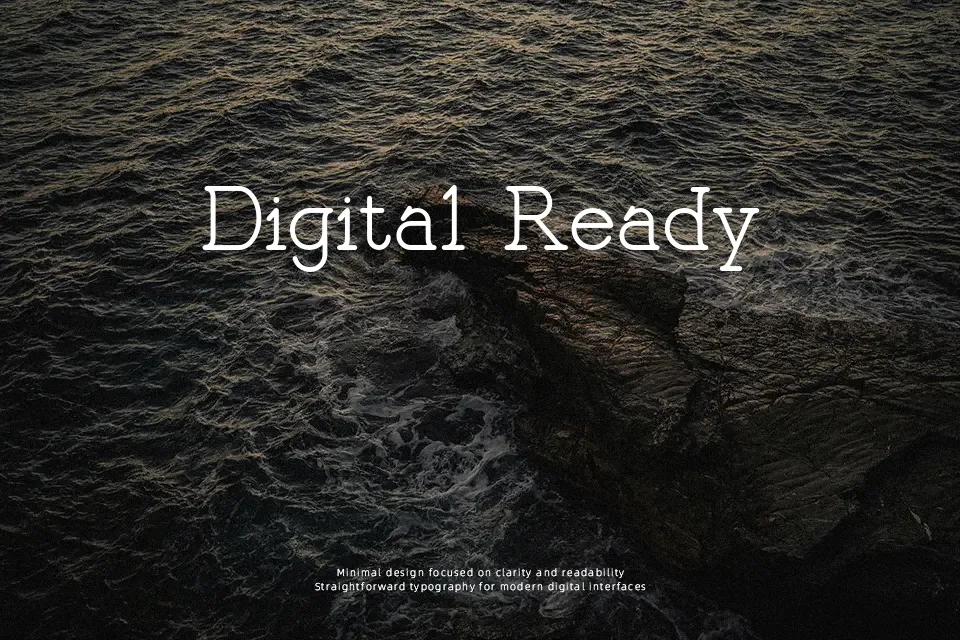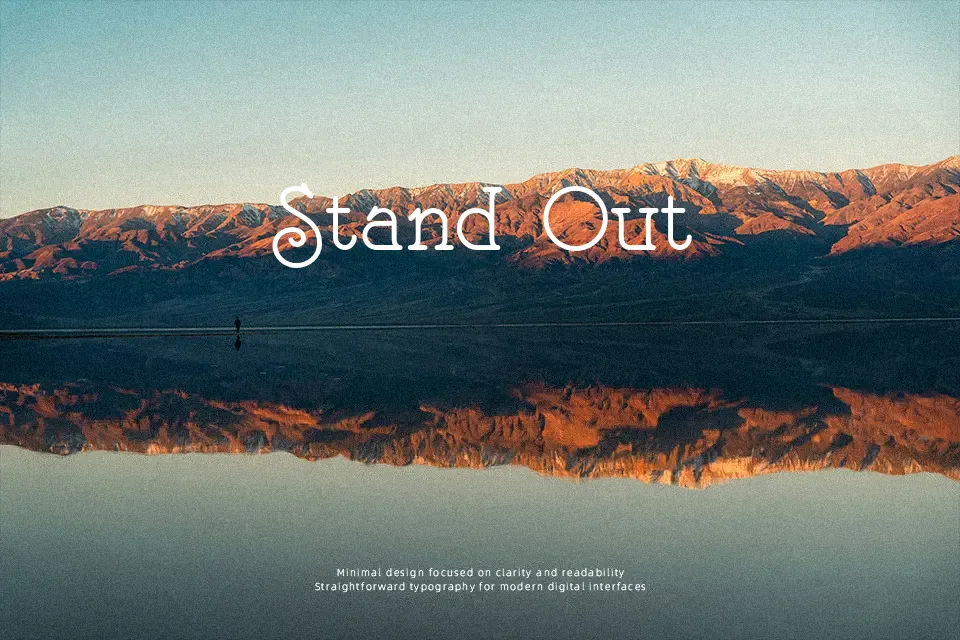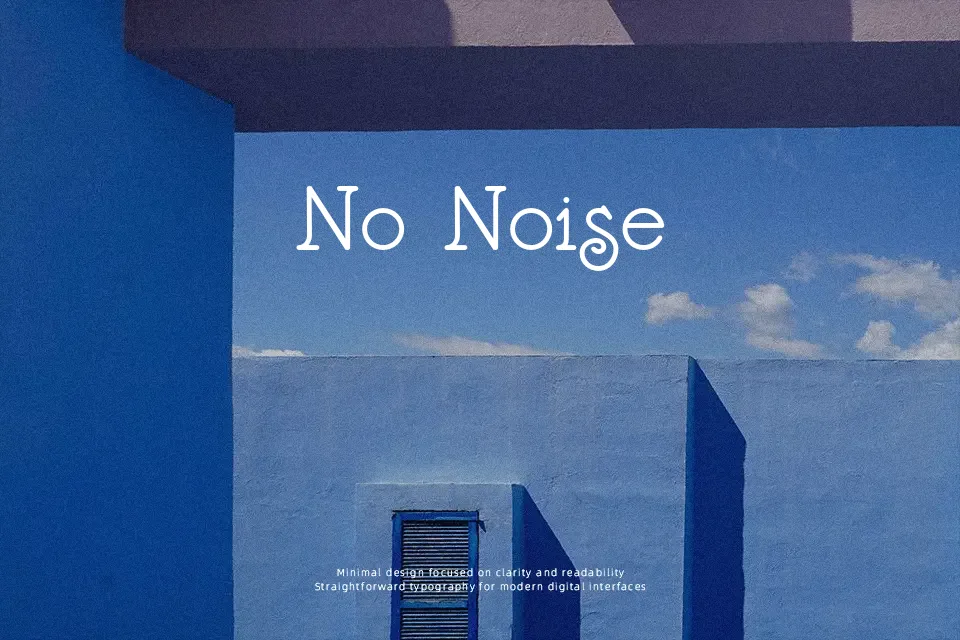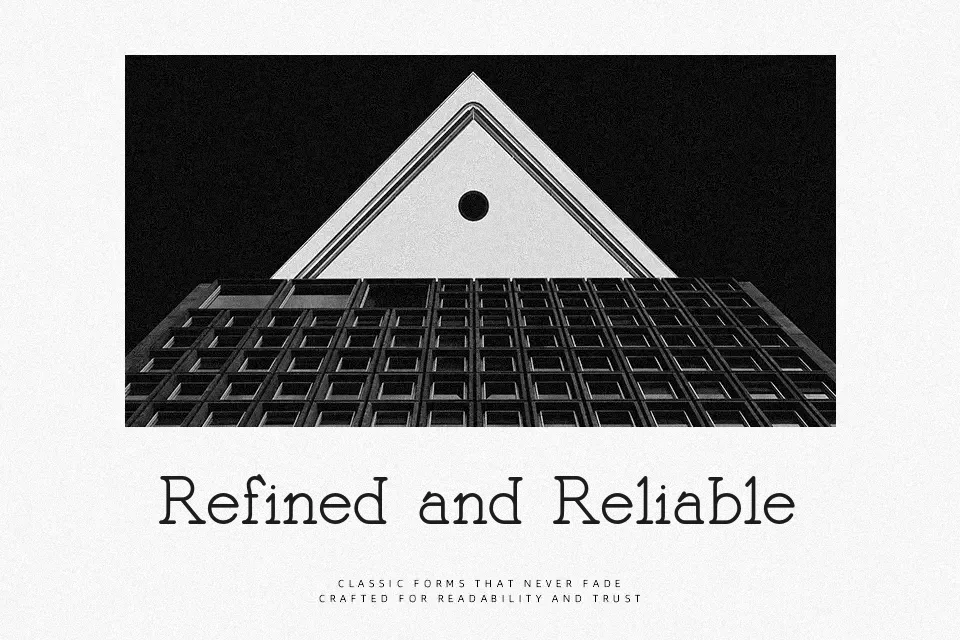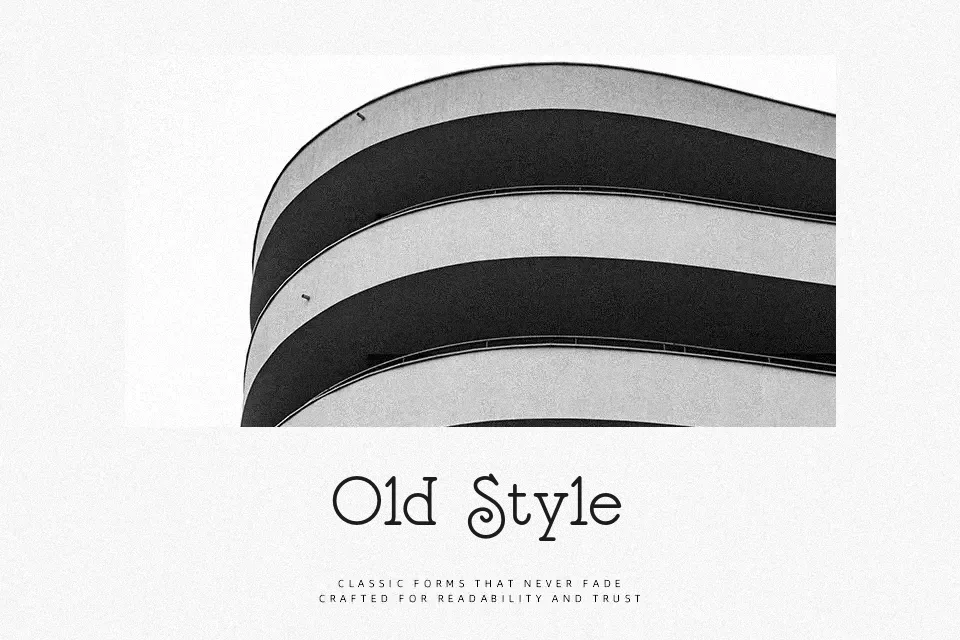
Bonte Divine Font
Designed by ClaudeP
Bonte Divine mixes a slim serif structure with a touch of typewriter roughness, so letters feel a bit worn in rather than mechanically clean. Strokes are light, spacing is airy, and the outlines show tiny irregularities that give text a quiet, human rhythm. Visually it leans decorative and retro, closer to a display serif than a strict text face, which works nicely for titles, pull quotes, and logo wordmarks that need warmth over precision. It holds up well at medium sizes on posters or social graphics, but long paragraphs or small UI labels will feel fragile and harder to scan, so it is better used as a supporting accent than a workhorse family.
Retro music or event posters
Soft vintage-flavored branding
Social media quotes and title cards
Long editorial body copy
Tiny UI labels or dense data layouts
Highly formal corporate documents
Perfect for branding, headline, and logo, with a creative and display style.